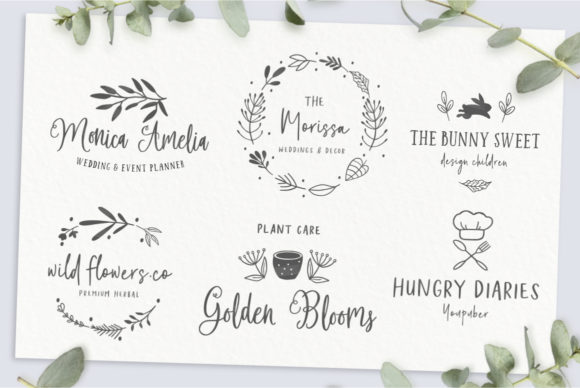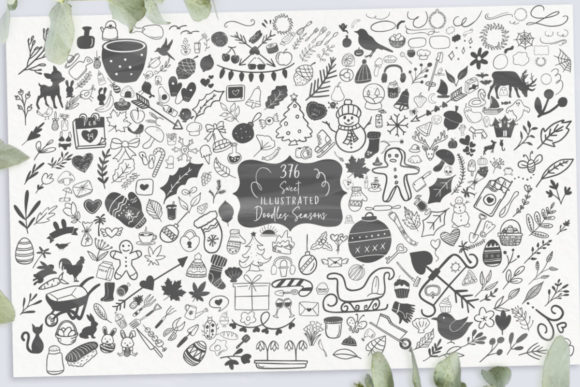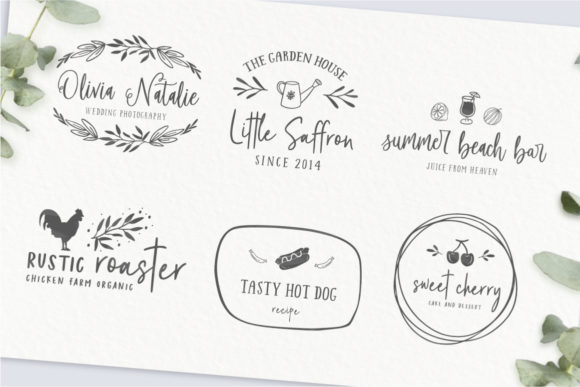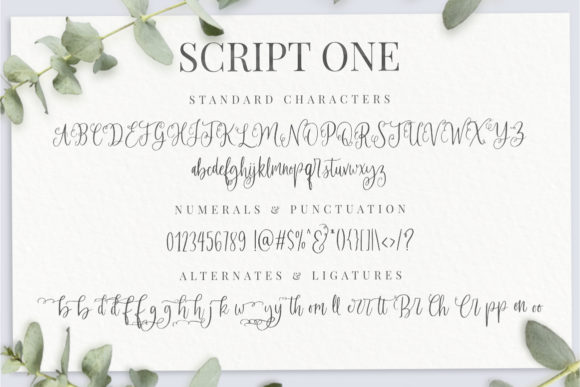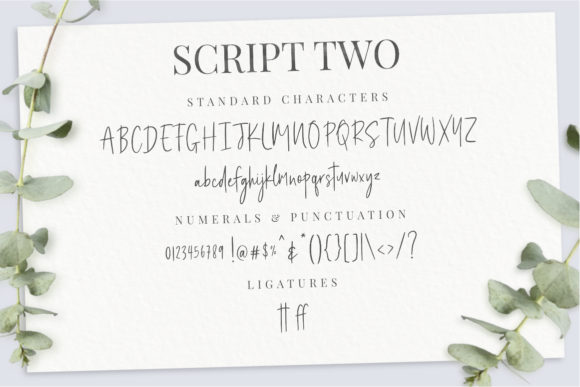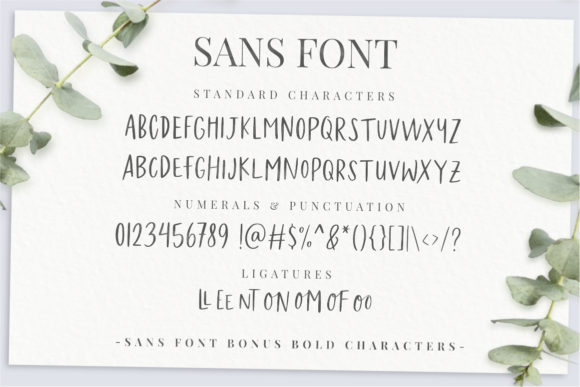
Introduction to Felichiya Collection Font
Felichiya Collection is a lovely and organic font (sans serif, serif and script).
Incredibly versatile, this font fits a wide pool of designs, elevating them to the highest levels Add this font to your favorite creative ideas and notice how it makes them come alive.
Key Features of Felichiya Collection Font
Why Choose Felichiya Collection Font?
Felichiya Collection Font offers exceptional quality and versatility, making it a valuable addition to your design toolkit. Whether you’re creating for personal projects or commercial use, Felichiya Collection Font delivers professional results.